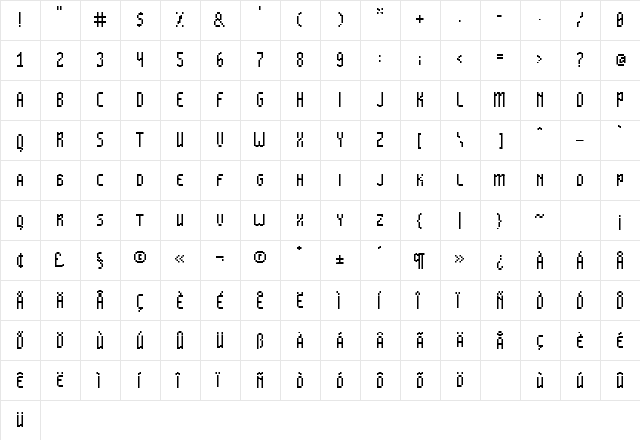
Annenski-SmallCaps Regular
Design Context for Annenski-SmallCaps Typeface
Annenski-SmallCaps takes a measured approach to typography — its balanced proportions and neutral character make it a reliable workhorse for both digital and print work.